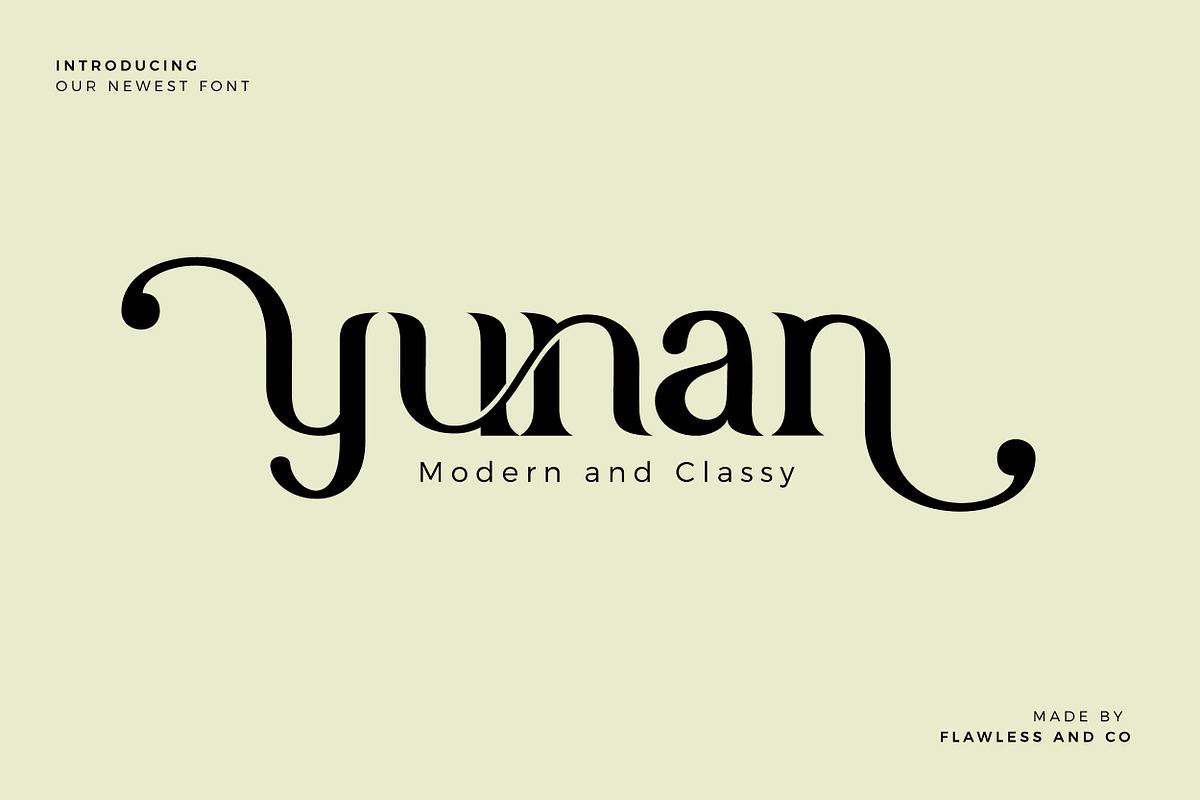
Yunan – Modern and Classy Font Free Download is a sleek and sophisticated typeface designed for modern elegance and timeless style. Perfect for upscale branding, luxury packaging, editorial design, and high-end websites, this font delivers both refinement and readability.
With clean lines, graceful curves, and balanced letterforms, Yunan – Modern and Classy Font Free Download adds a sophisticated touch to any project. Whether you’re designing a chic brand identity, a luxury product line, or a stylish event invitation, Yunan brings a sense of professionalism and elegance to your typography. Try it out in your next design to experience its premium feel—then upgrade to a commercial license when you're ready to take it live.